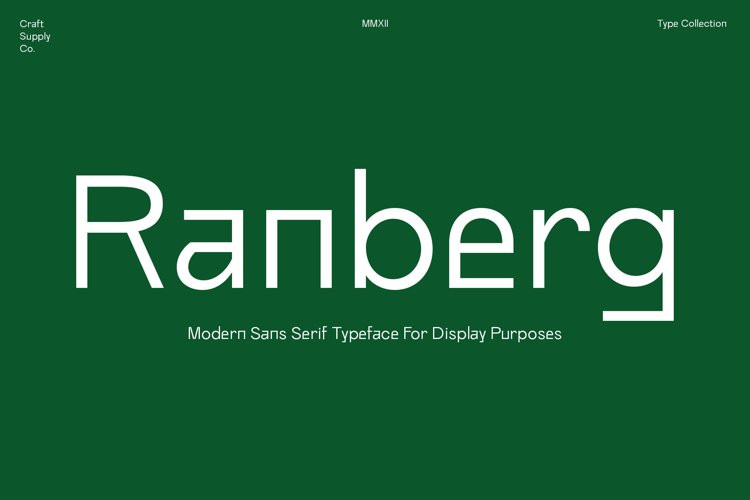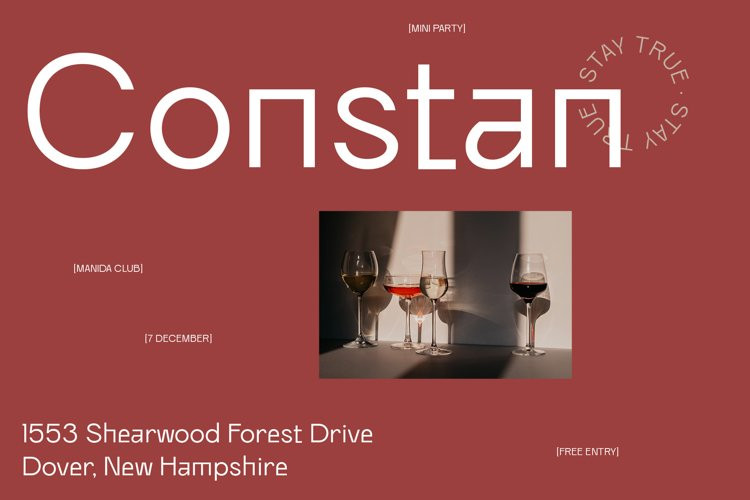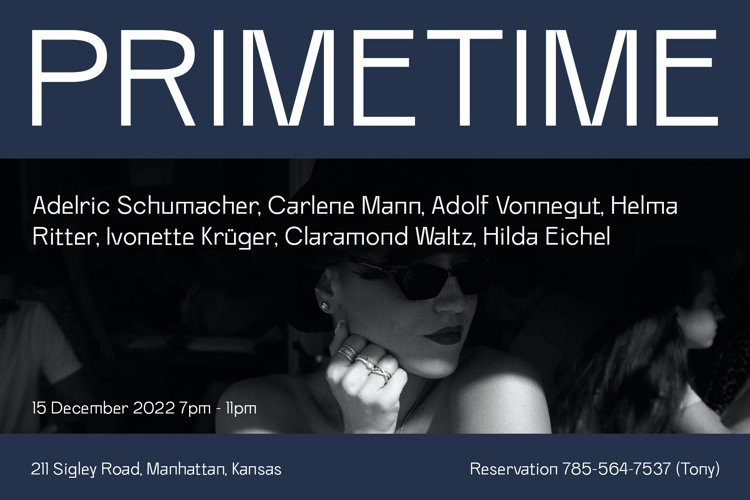
Ranberg Font
Ranberg FontIntroducing Ranberg, a modern sans serif typeface combines grotesque and geometric structure to maintain a flashy look for display purposes.
You want to make a greeting card or a package design, or even a brand identity, craft design, any DIY project, book title, poster, pop vintage design, retro design or any purpose to make your art/design project look pretty and trendy? Feel free to play with this typeface!